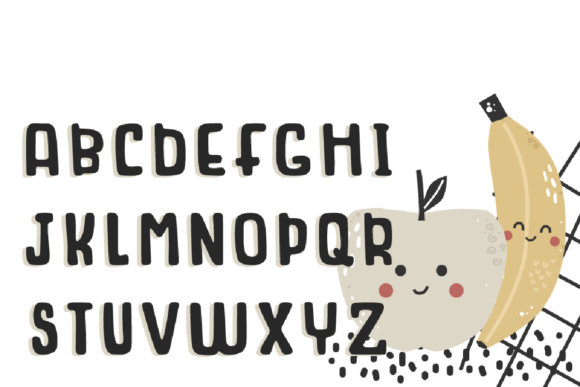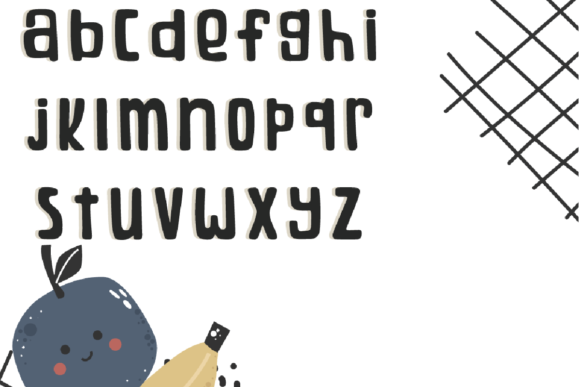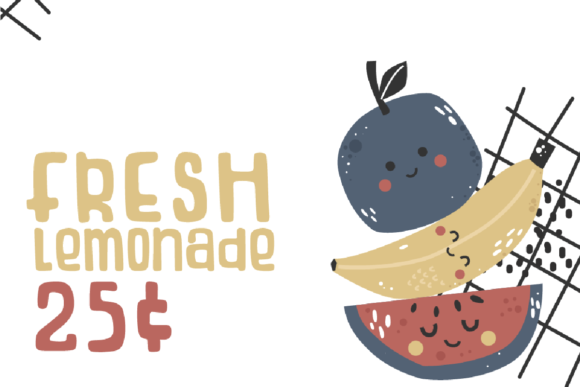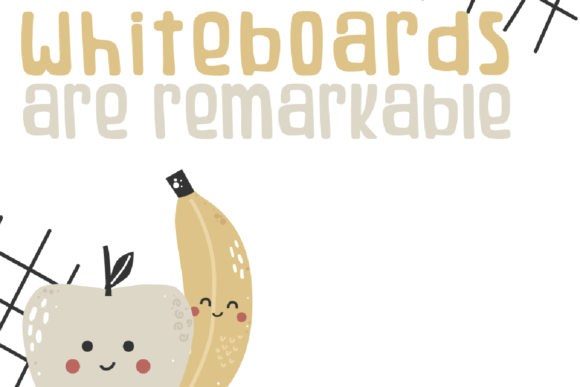
Eenie Meenie Font
About Eenie Meenie Font
Eenie Meenie is an adorable and quirky handwritten font. It can easily be matched to an incredibly large set of projects, so add it to your creative ideas and notice how it makes them stand out!